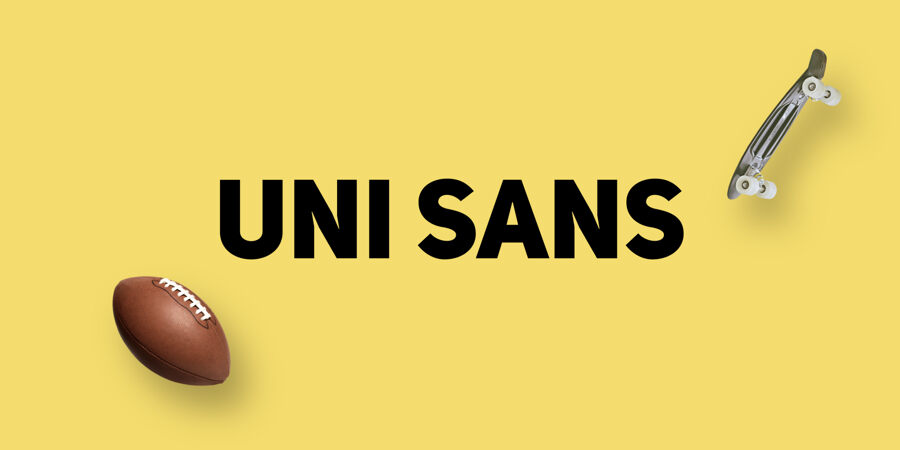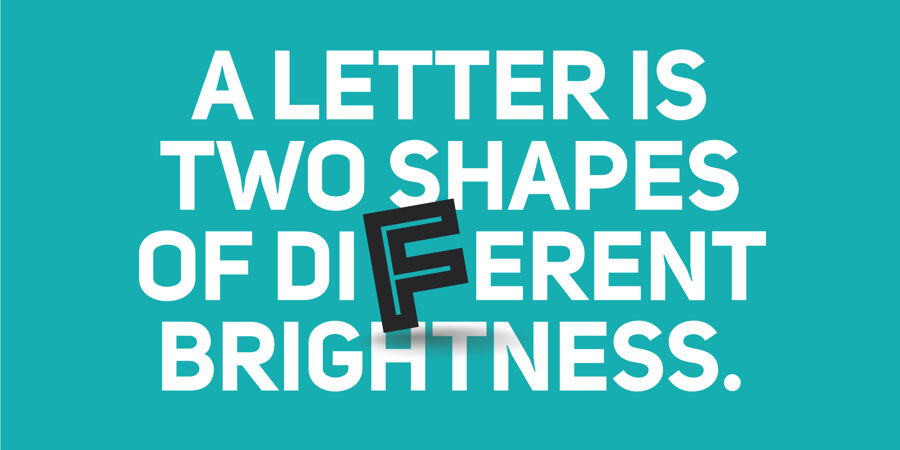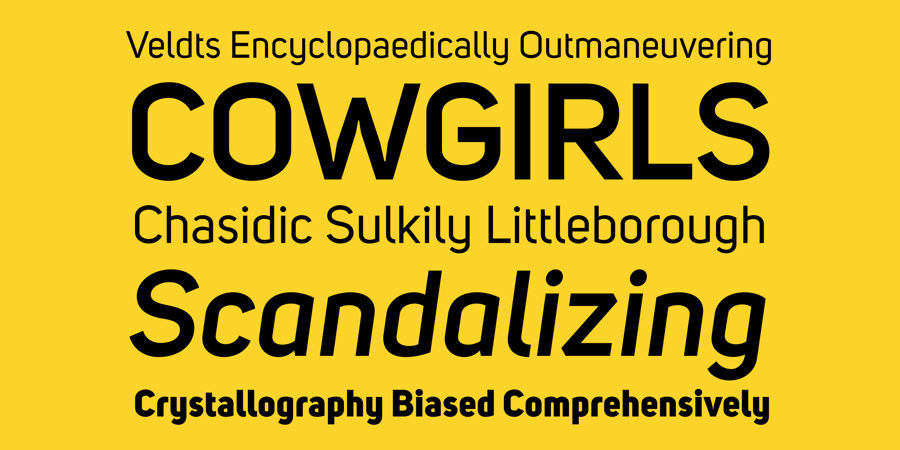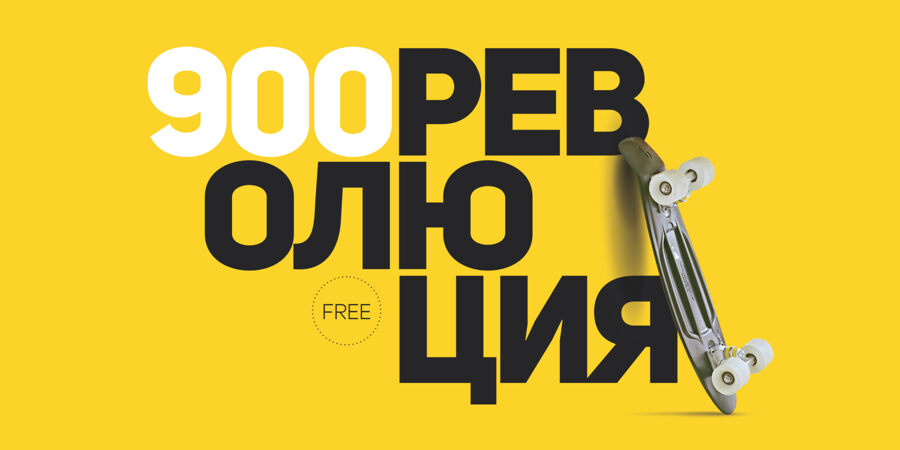
The Uni Sans font family takes its inspiration from classic grotesque typefaces like DIN and Dax, but sets itself apart with its own unique style. By combining robust, geometric foundations with perfectly softened curves, Uni Sans achieves a distinct balance between strength and elegance. This carefully crafted design delivers a typeface that feels both timeless and contemporary, making it a reliable and stylish choice for today’s designers.
Uni Sans is designed for versatility across a wide range of design applications. Its well-finished geometric forms and subtly softened details make it an excellent choice for everything from bold headlines to clear, readable text blocks.